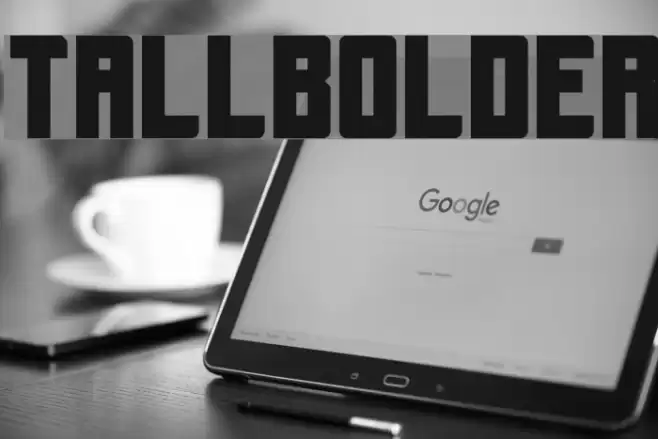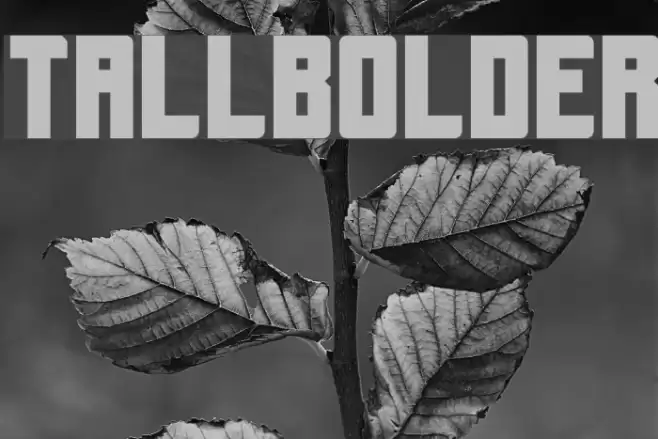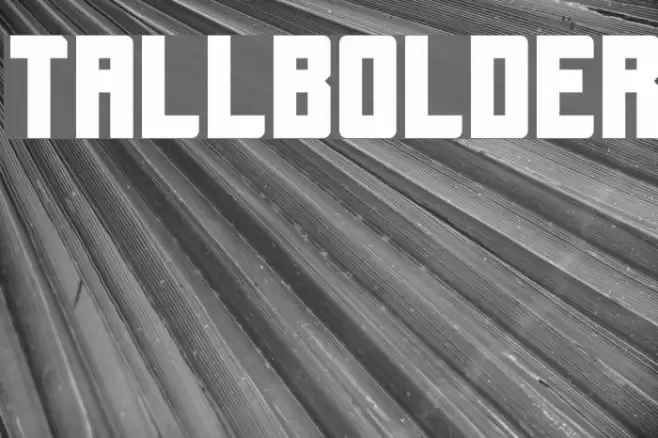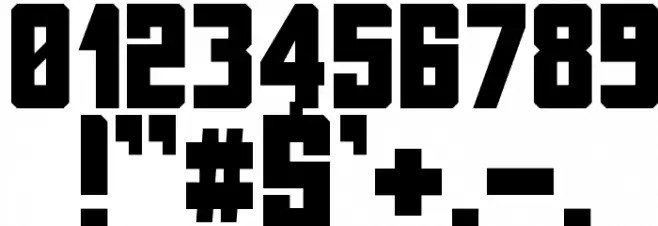
Tallbolder Font
Tallbolder Description
This font features a bold and robust design, characterized by its tall and blocky letterforms. The uppercase letters are particularly striking, with a geometric and angular appearance that conveys strength and stability. The numbers and special characters maintain this bold aesthetic, ensuring consistency across all glyphs. The font's design is highly legible, making it suitable for impactful headlines and attention-grabbing text. Its strong presence is ideal for projects that require a commanding visual element.
A bold, geometric font with tall, blocky letterforms from Uncategorized fonts.
- Proposed Projects: Ideal for posters, logos, branding, and any design requiring a bold statement.